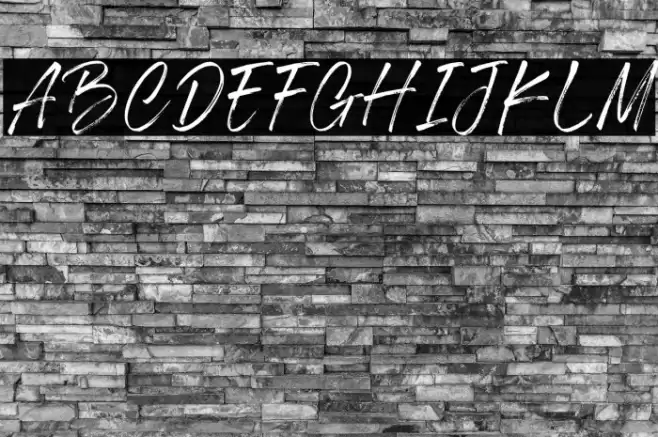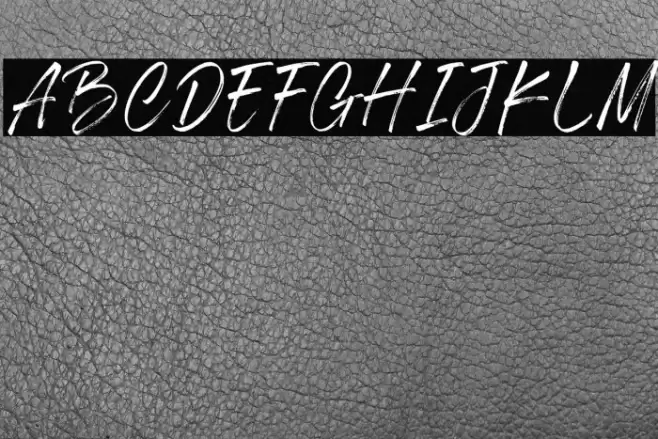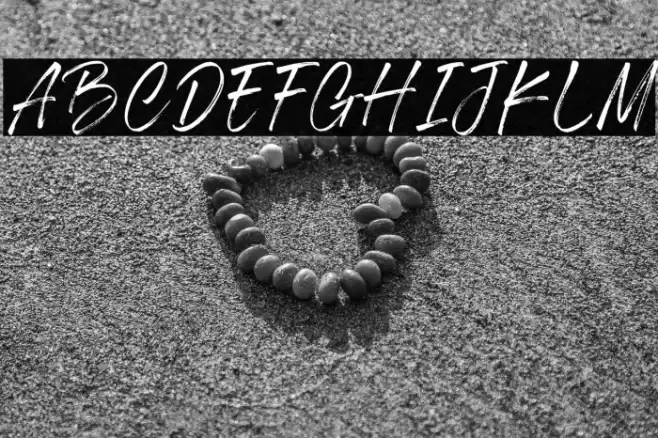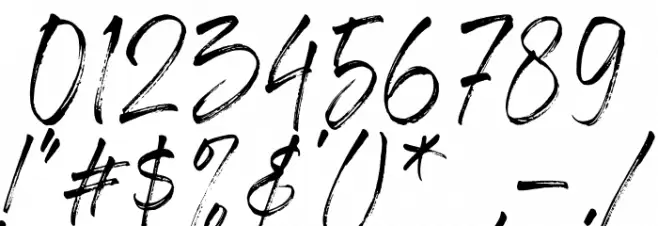
Long Path Font
Long Path Description
This font exhibits a dynamic and expressive handwritten style, characterized by its brush-like strokes and fluid motion. The letters are slightly slanted, giving a sense of movement and energy. Each character is unique, with varying thicknesses that mimic the natural flow of handwriting. The uppercase letters are bold and prominent, while the lowercase letters maintain a consistent style, enhancing readability. The numerals and special characters follow the same aesthetic, ensuring a cohesive look throughout. This font is ideal for projects that require a personal touch or artistic flair.
A dynamic, brush-style handwritten font with expressive strokes from Uncategorized fonts.
- Font: Long Path
- Proposed Projects: Ideal for branding, invitations, greeting cards, and artistic projects.
- Use Case: Logos, Headlines, Artistic projects